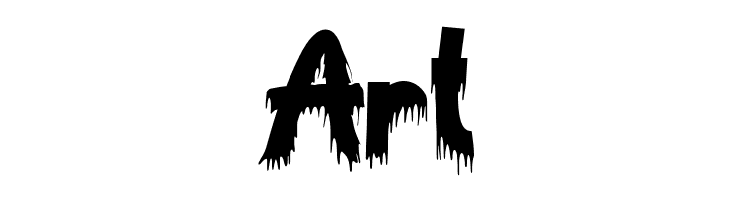
( Fonts by Perspectype Studio )
A spooky, hand-drawn font with sharp, elongated strokes and a scratchy texture.
( Fonts by Font Bundles )
A bold, spooky font with a dripping effect, ideal for Halloween themes.
( Fonts by share font )
A bold, distressed font with a spooky, hand-drawn appearance.
( Fonts by Yoga Letter )
A bold, dripping font ideal for horror and Halloween themes.
( Fonts by Andi Moz )
A spooky, jagged font perfect for Halloween themes.
( Fonts by Daniel Busoi )
A whimsical, spooky font with distorted, playful characters.
( Fonts by Dharmas Studio )
A bold, hand-drawn font with a spooky, horror-inspired style.
( Fonts by Lettersweet Studio )
A bold, jagged font with a spooky, horror-inspired design.
( Fonts by Annisa Afni )
A spooky, tombstone-themed font with a playful, hand-drawn style.
( Fonts by Masa Aska Sanurumi )
An ornate, gothic-style font with intricate details and a spooky vibe.